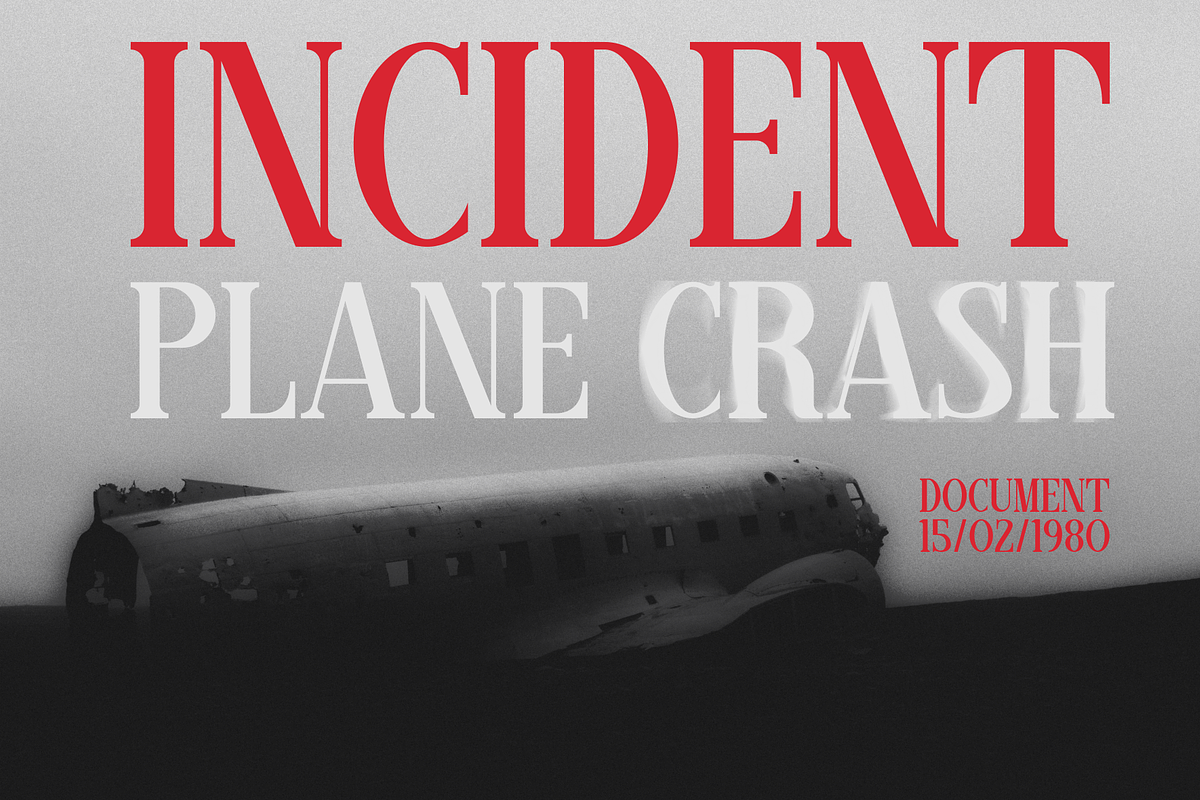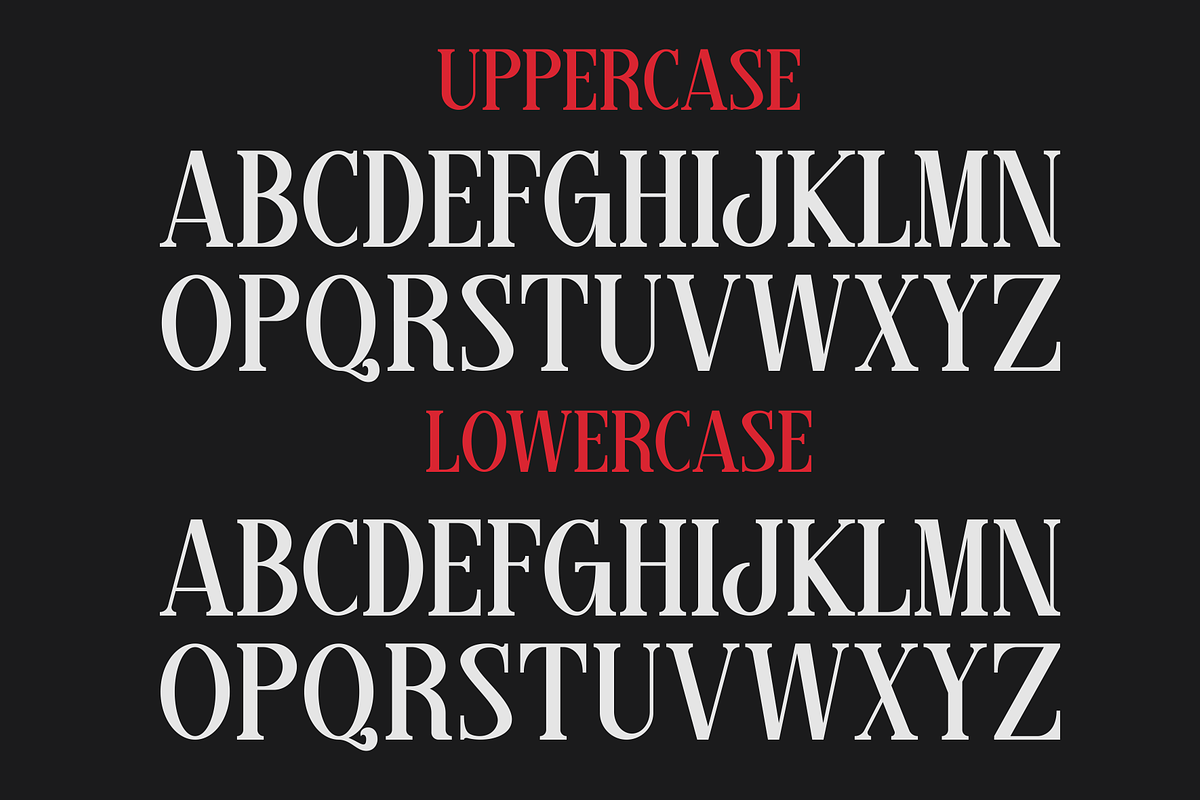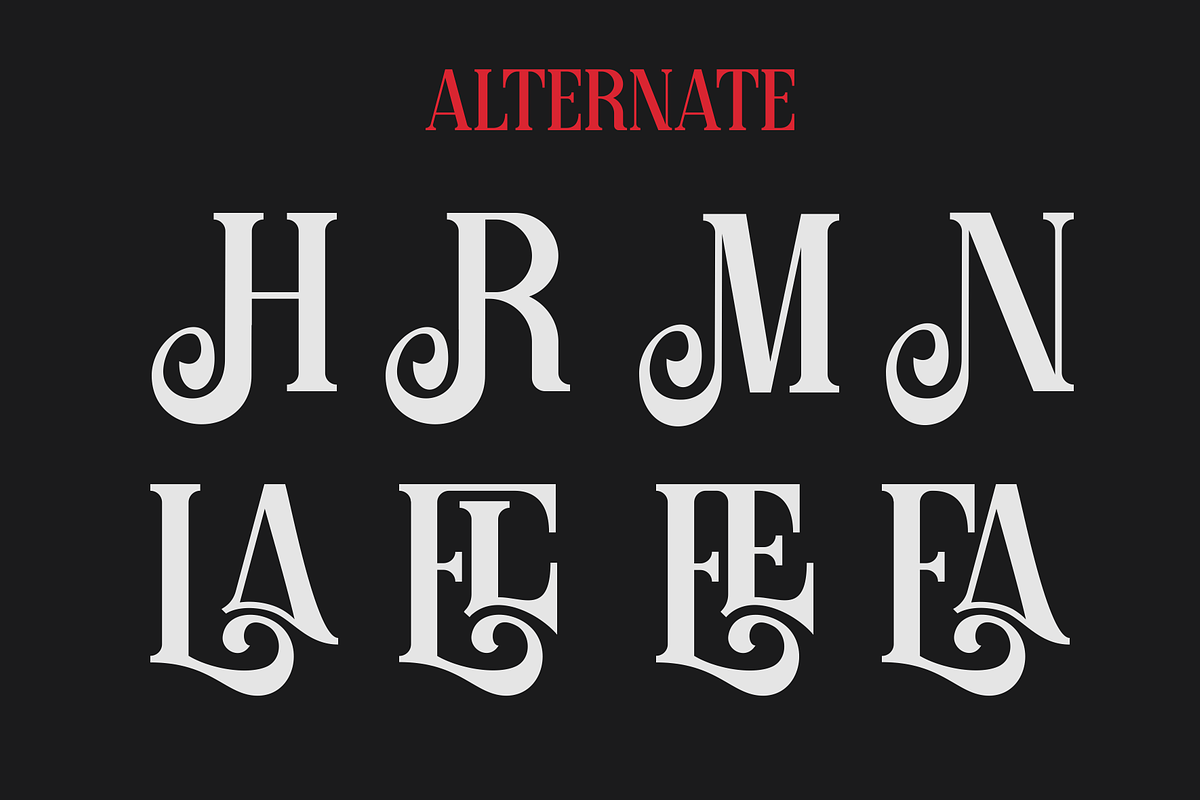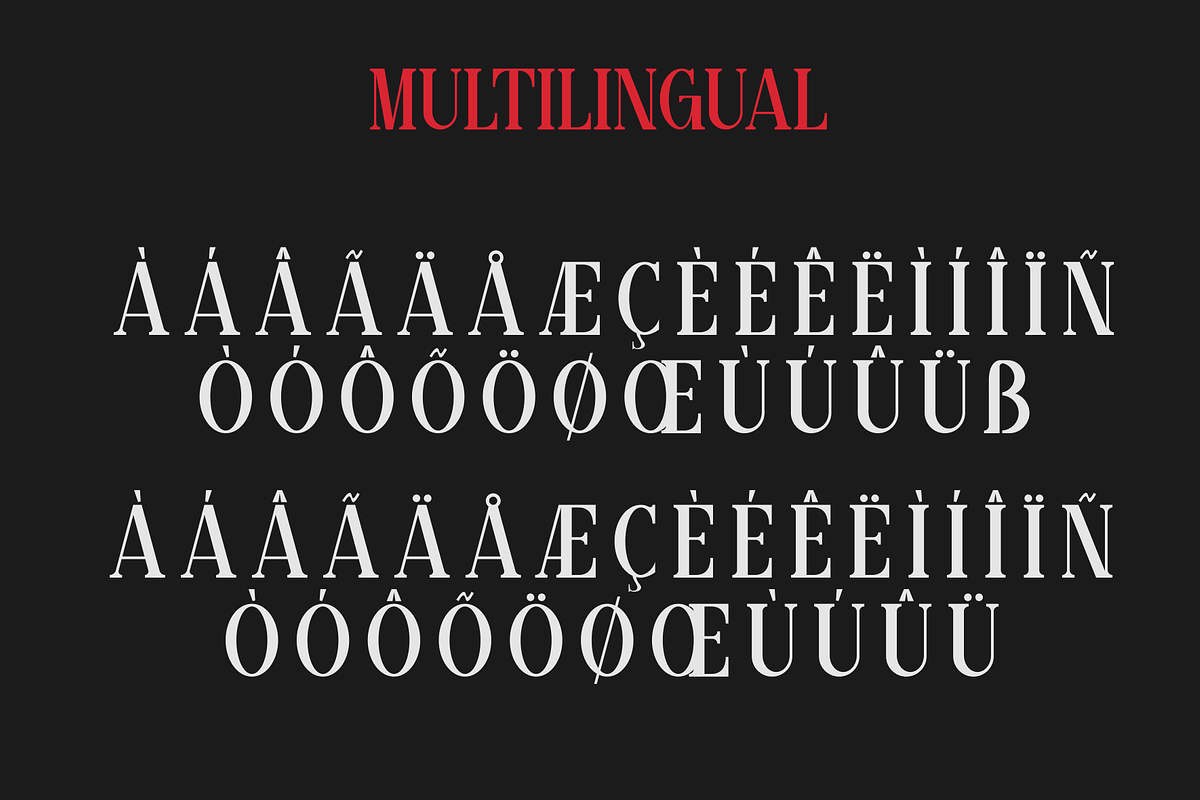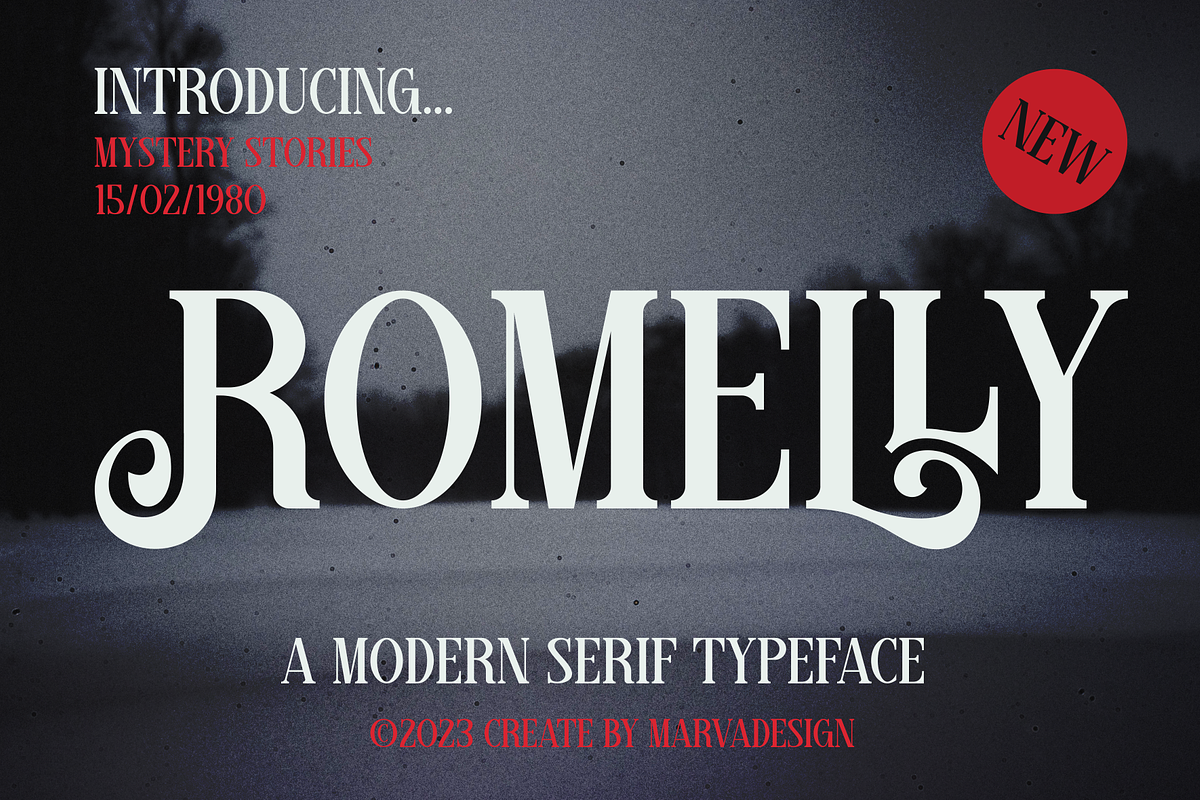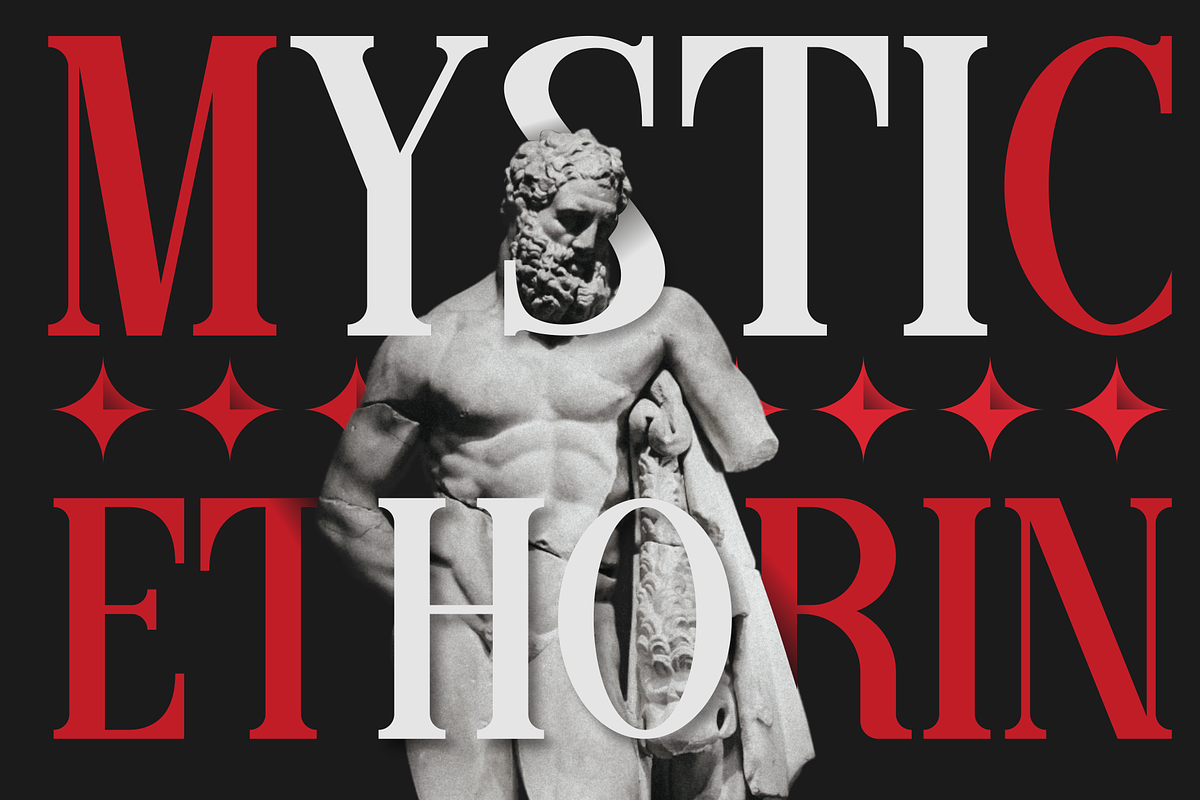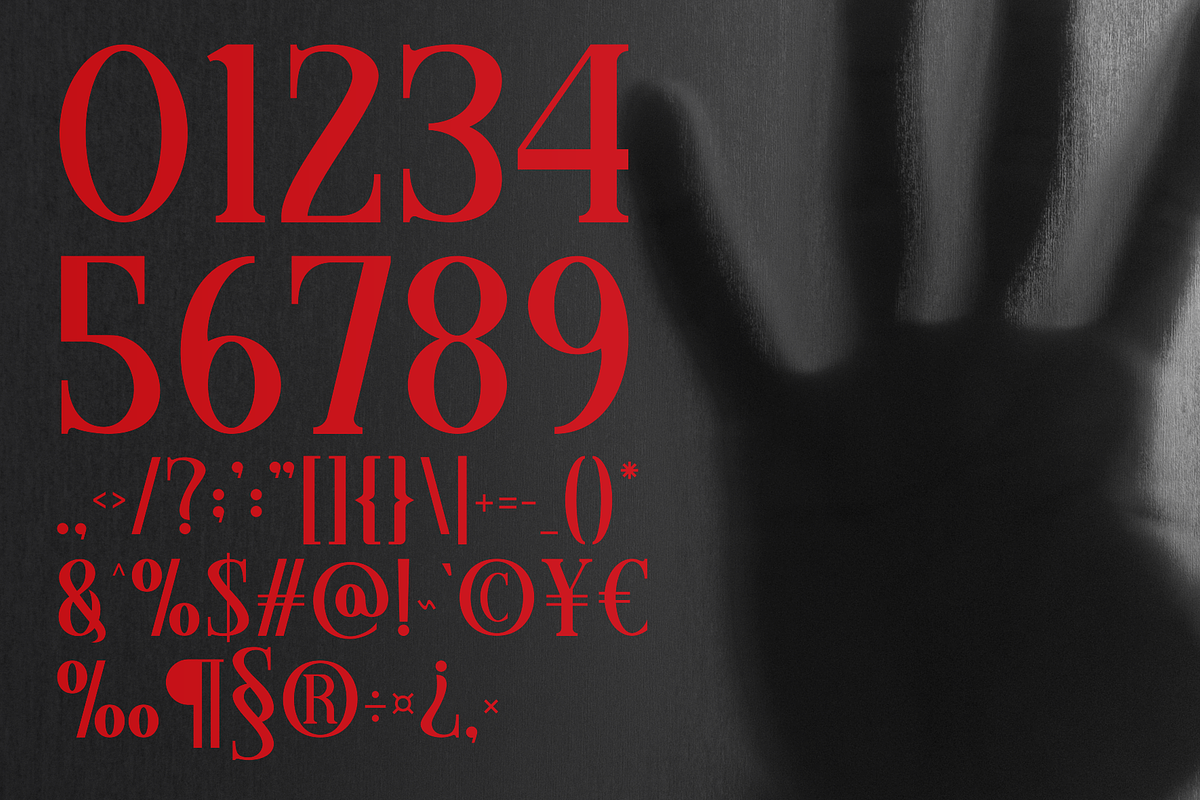
Romelly - A Modern Serif Font
Introducing our new product Romelly Font - Modern Font Romelly Font - Horror serif fonts are a type of font specifically designed to create a mysterious, tense, and sometimes scary atmosphere. This font is often used in graphic design, print media, and creative projects looking to explore a horror or supernatural aesthetic. availlable